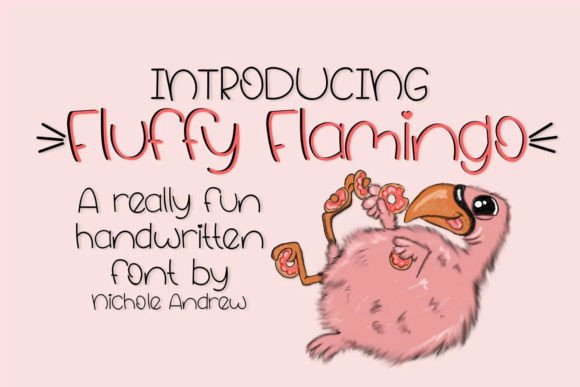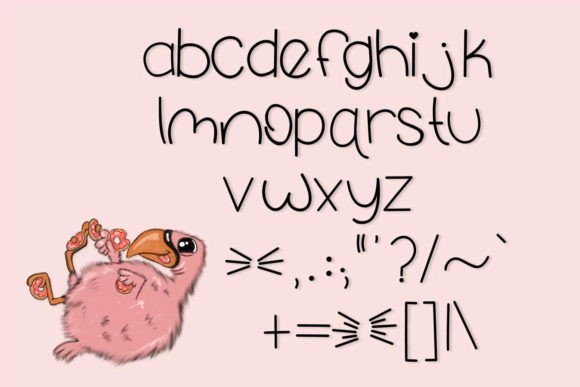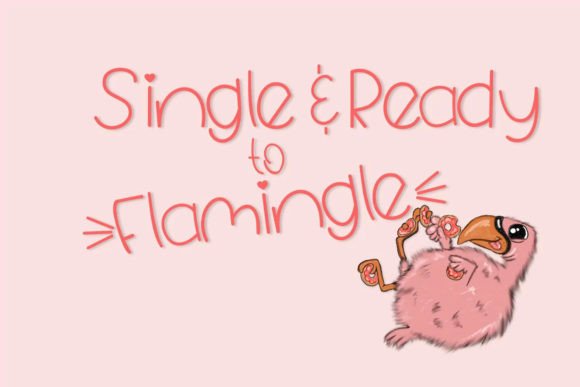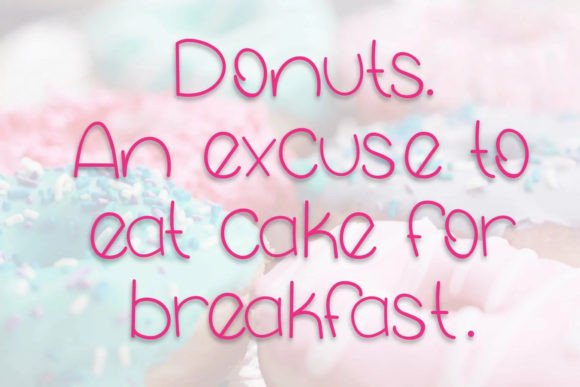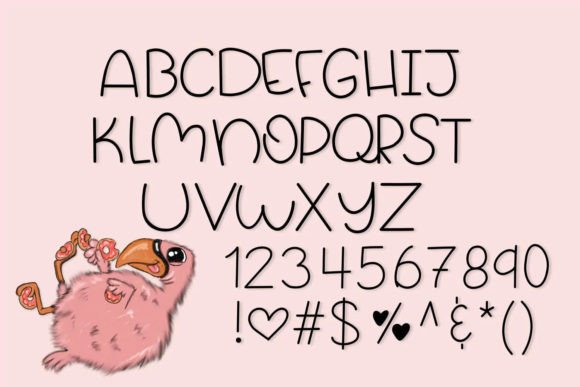
About Fluffy Flamingo Font
“Fluffy Flamingo” is an adorable and cute handwritten font that adds a fun and playful touch to your creative projects. With its unique features, such as heart “i” dots and fun letters, this font brings a delightful and charming vibe to your designs.
The whimsical and lively nature of “Fluffy Flamingo” makes it perfect for a variety of projects, including water bottles, decals, bags, shirts, and more. Its playful design adds a touch of joy and uniqueness, making it stand out and capture attention.
The inclusion of heart “i” dots adds a sweet and endearing element to the font, enhancing its overall charm. This feature makes it particularly suitable for projects where a fun and lighthearted aesthetic is desired.
Whether you’re working on crafts, personalized items, or any project that could benefit from a cute and playful font, “Fluffy Flamingo” is designed to bring a smile to your audience. Its versatility and fun-loving design make it a great choice for adding a touch of whimsy to your creative endeavors.